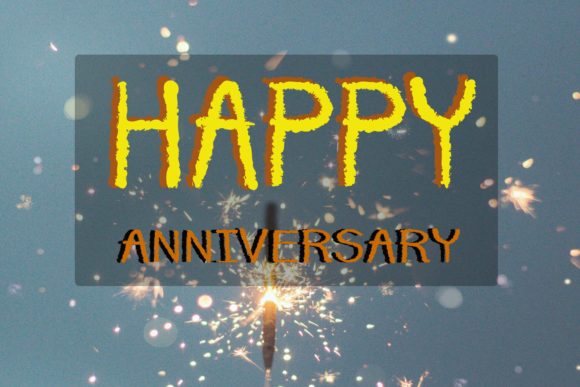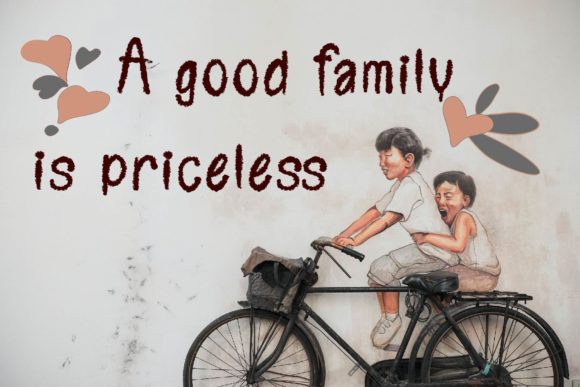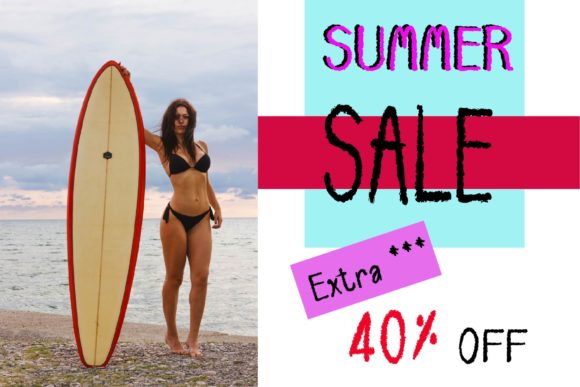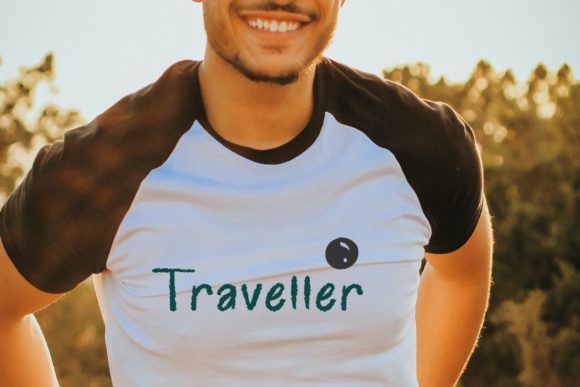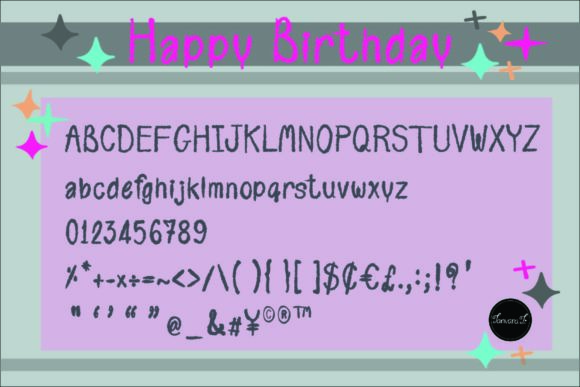
Happy Birthday Font: The Perfect Addition to Your Greeting Cards and Invitations
Are you looking for a font that can add a touch of festivity and fun to your greeting cards, invitations, and birthday projects? Look no further than the Happy Birthday font! This great display font is perfect for designers and crafters who want to create unique and eye-catching designs that will make their projects stand out.
What Makes Happy Birthday Font So Special?
Happy Birthday font features a festive and fun style that is sure to bring a smile to anyone’s face. Its playful and celebratory vibe makes it perfect for birthday-themed projects, but it’s also versatile enough to be used for other celebrations and occasions. Whether you’re designing a greeting card, invitation, or birthday banner, this font is sure to add a touch of whimsy and fun to your project.
Key Features of Happy Birthday Font
- Festive and Fun Style: Happy Birthday font features a unique and playful style that is perfect for birthday-themed projects.
- Great Display Font: This font is designed to make a statement, making it perfect for headings, titles, and other display text.
- Perfect for Greeting Cards and Invitations: Happy Birthday font is ideal for designers and crafters who want to create unique and eye-catching greeting cards and invitations.
- Versatile: This font can be used for a variety of projects, including birthday banners, party decorations, and more.
How to Use Happy Birthday Font in Your Designs
Using Happy Birthday font in your designs is easy! Here are a few tips to get you started:
- Pair it with Other Fonts: Happy Birthday font looks great when paired with other fonts, such as script fonts or sans-serif fonts.
- Use it for Headings and Titles: This font is perfect for headings and titles, making it a great addition to your greeting cards and invitations.
- Add it to Your Digital Designs: Happy Birthday font can be used in digital designs, such as social media graphics and party invitations.
- Experiment with Different Colors: This font looks great in a variety of colors, so don’t be afraid to experiment and find the perfect color for your project.
Why Designers and Crafters Love Happy Birthday Font
Designers and crafters love Happy Birthday font for a variety of reasons. Here are a few:
- Easy to Read: Despite its playful style, Happy Birthday font is easy to read, making it perfect for greeting cards and invitations.
- Unique and Eye-Catching: This font is sure to make your projects stand out, thanks to its unique and eye-catching style.
- Versatile: Happy Birthday font can be used for a variety of projects, making it a great addition to any designer’s or crafter’s toolkit.
- Fun and Festive: This font is perfect for designers and crafters who want to add a touch of fun and festivity to their projects.
In conclusion, Happy Birthday font is a great display font that is perfect for designers and crafters who want to add a touch of festivity and fun to their greeting cards, invitations, and birthday projects. Its playful and celebratory vibe makes it perfect for birthday-themed projects, but it’s also versatile enough to be used for other celebrations and occasions. With its easy-to-read style, unique and eye-catching design, and versatility, Happy Birthday font is a great addition to any designer’s or crafter’s toolkit.